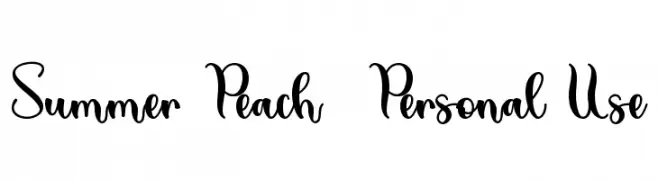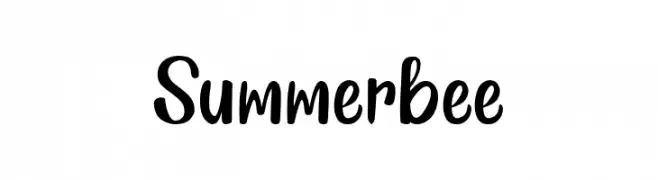
• Sugarpie
A playful, casual handwritten font with an organic and friendly appearance.
• Suihou
• Summer View Italic
A bold, italicized script font with interconnected letters and a flowing style.
• Summer Coast
A bold, brush-style script font with a lively and artistic flair.
• Summer Coast Extra
A playful, hand-drawn set of summer-themed symbols and shapes.
• summer miracle
A lively and expressive handwritten font with fluid strokes and dynamic style.
• Summer Monogram
A whimsical and elegant script font with flowing, interconnected letters and decorative swirls.
• Summer Peach - Personal Use
A playful and whimsical script font with a handwritten style.
• Summerbee
A bold, handwritten font with a playful and friendly style.
• SummerBlacktop
A bold, distressed font with a vintage, rugged appearance.